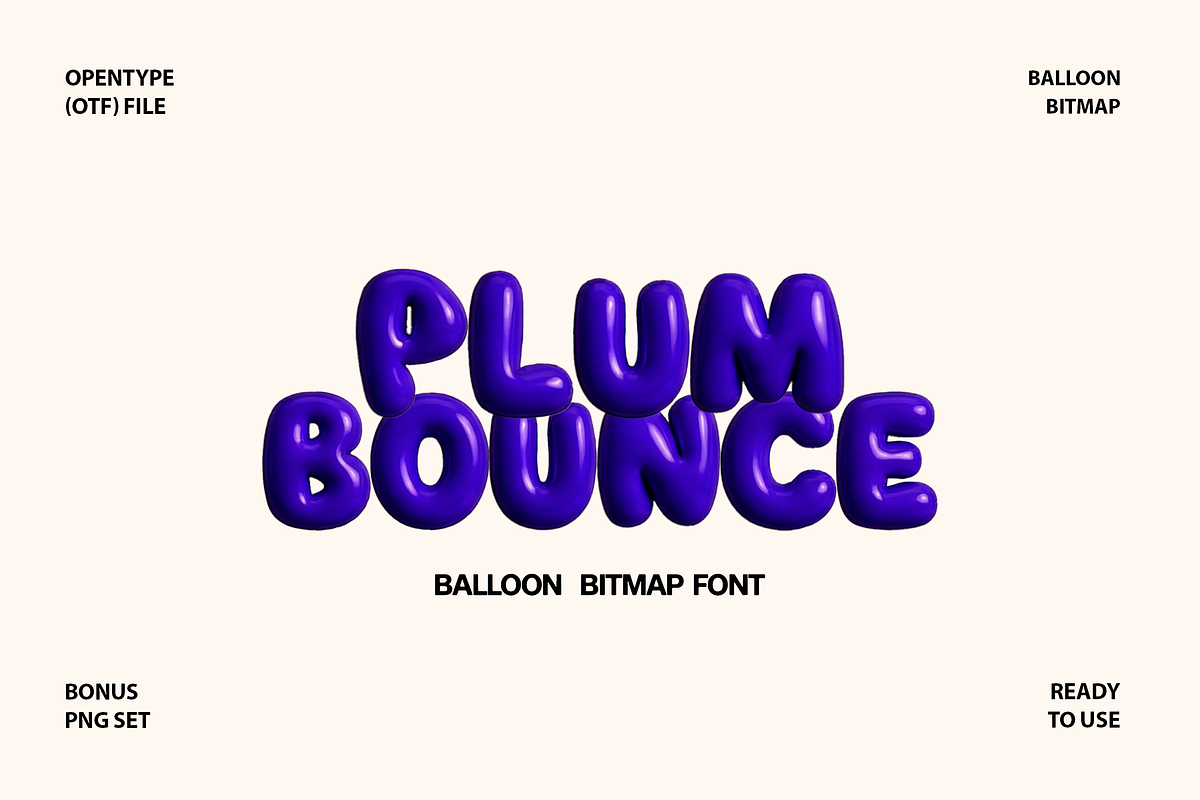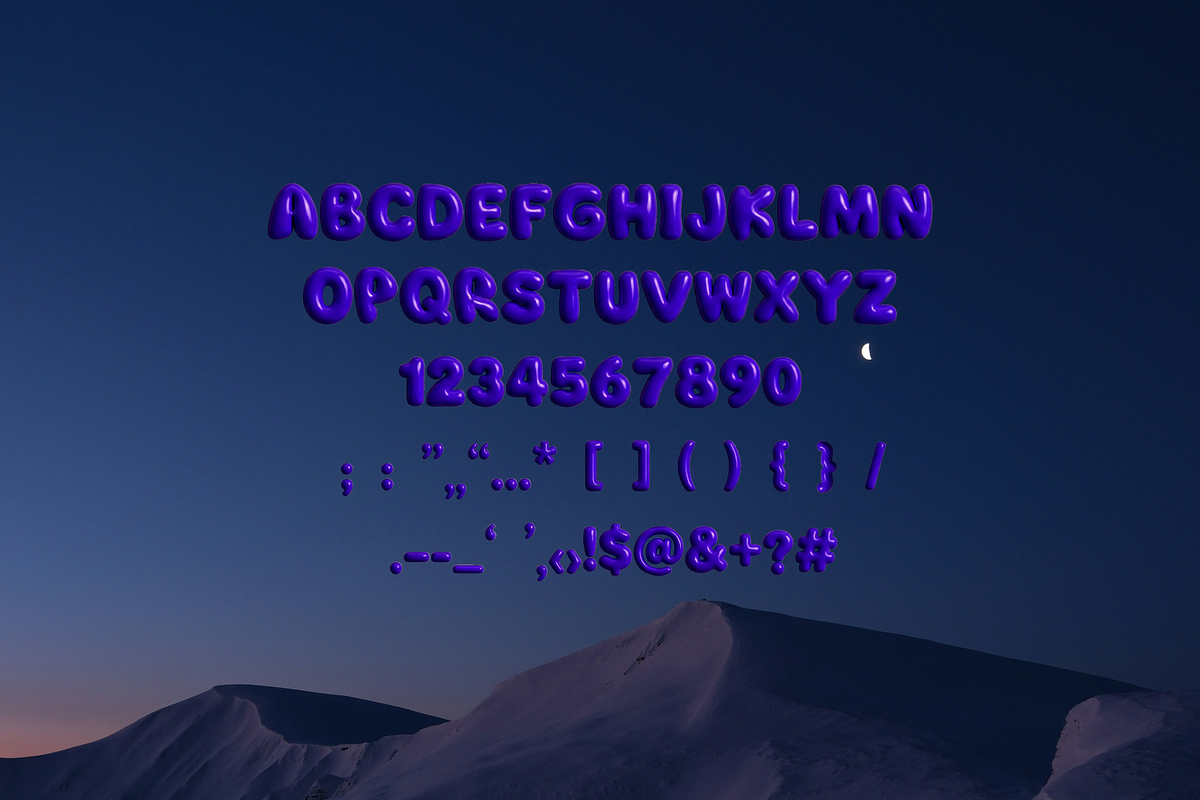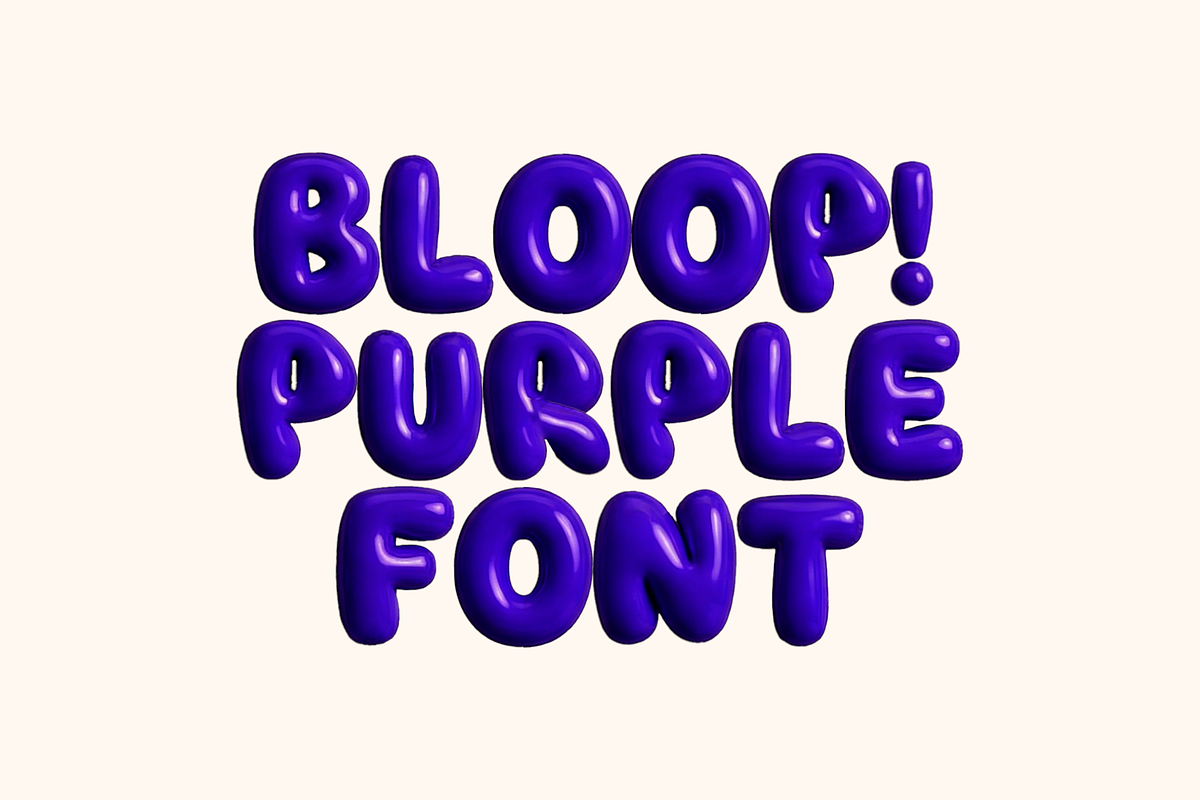
Plum Bounce | Balloon Bitmap Font
Plum Bounce is a playful purple balloon-style bitmap font with a glossy 3D look and soft puffy volume. Perfect for kids projects, party invitations, stickers, posters, and bold fun branding.
This is a bitmap (raster) font.